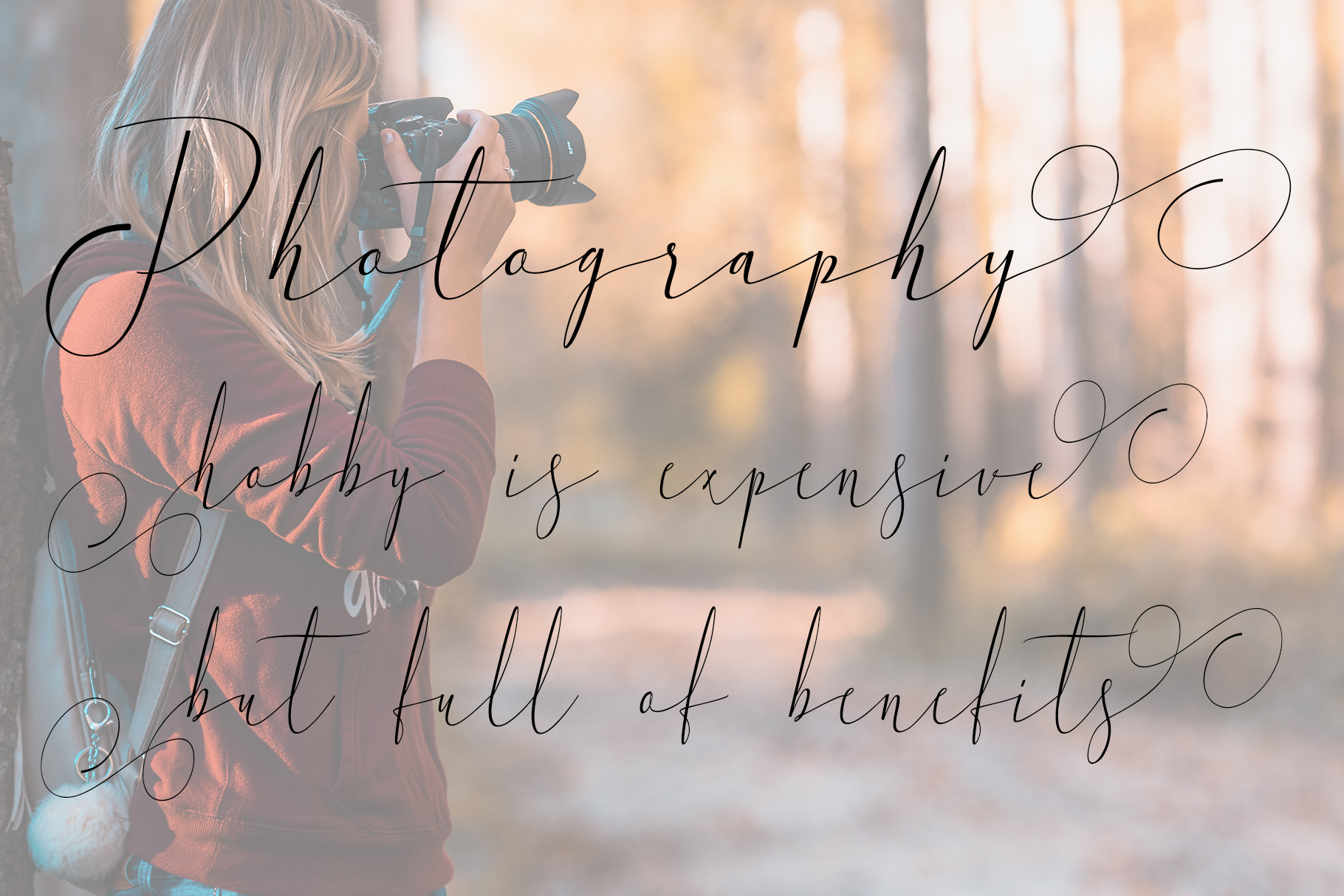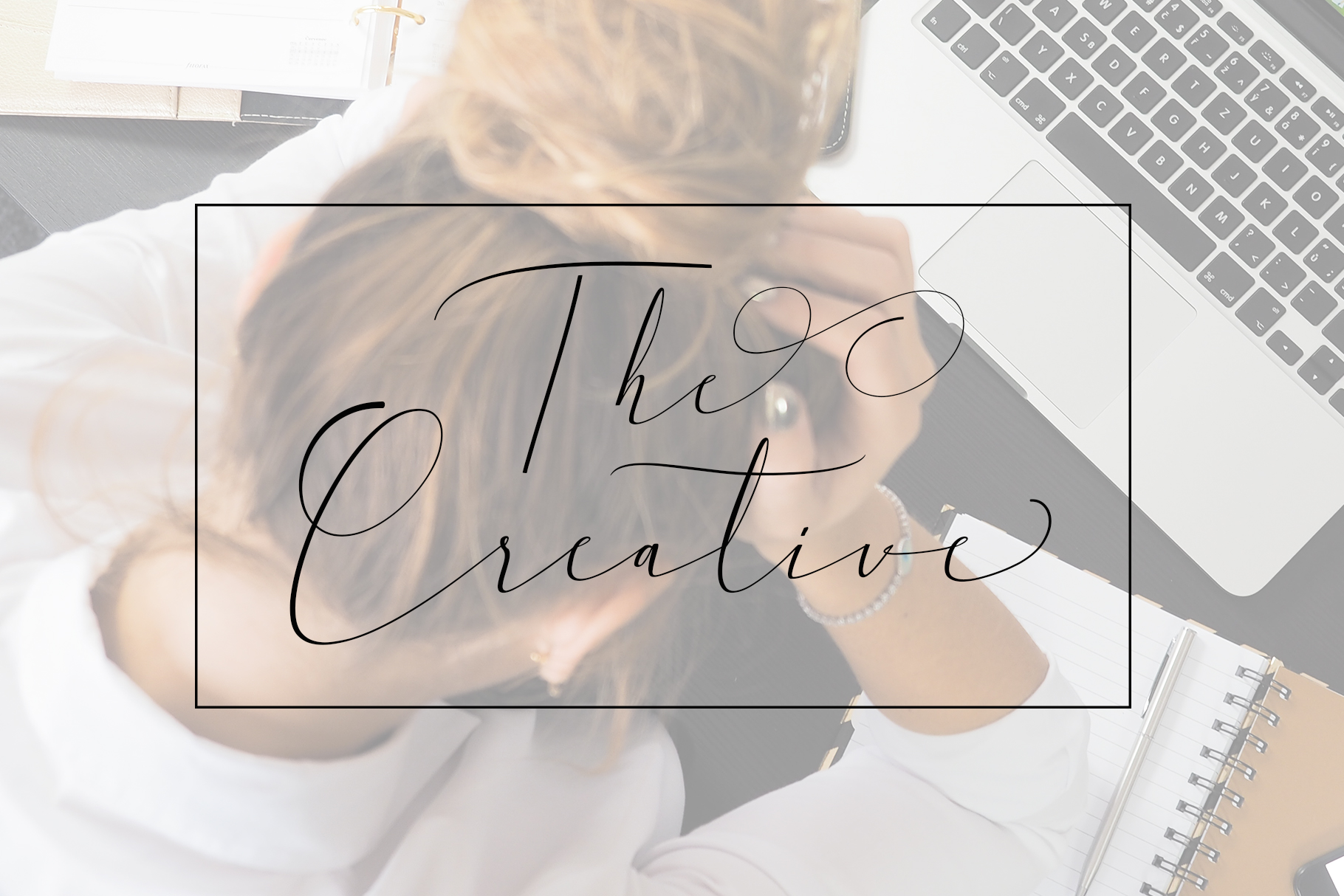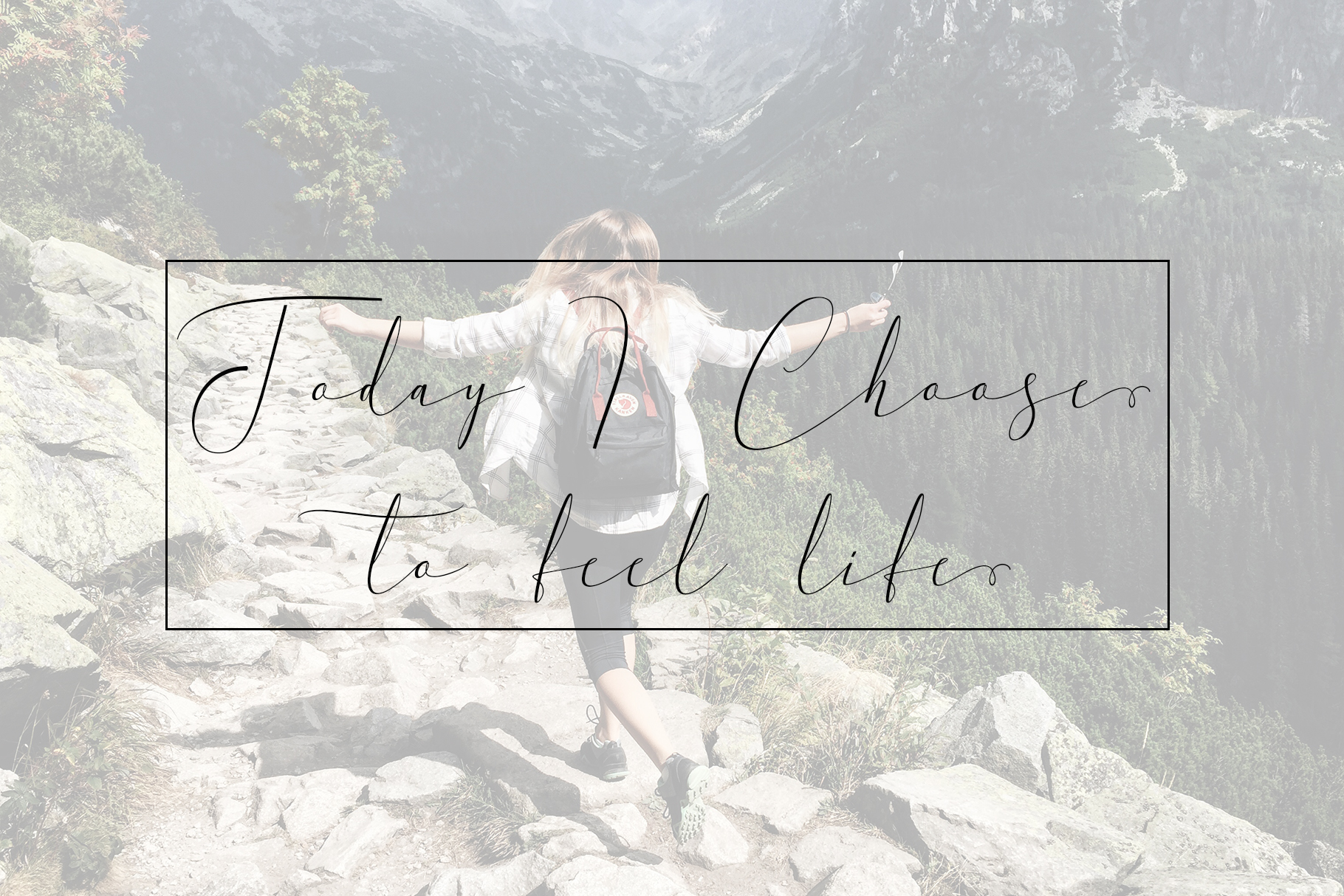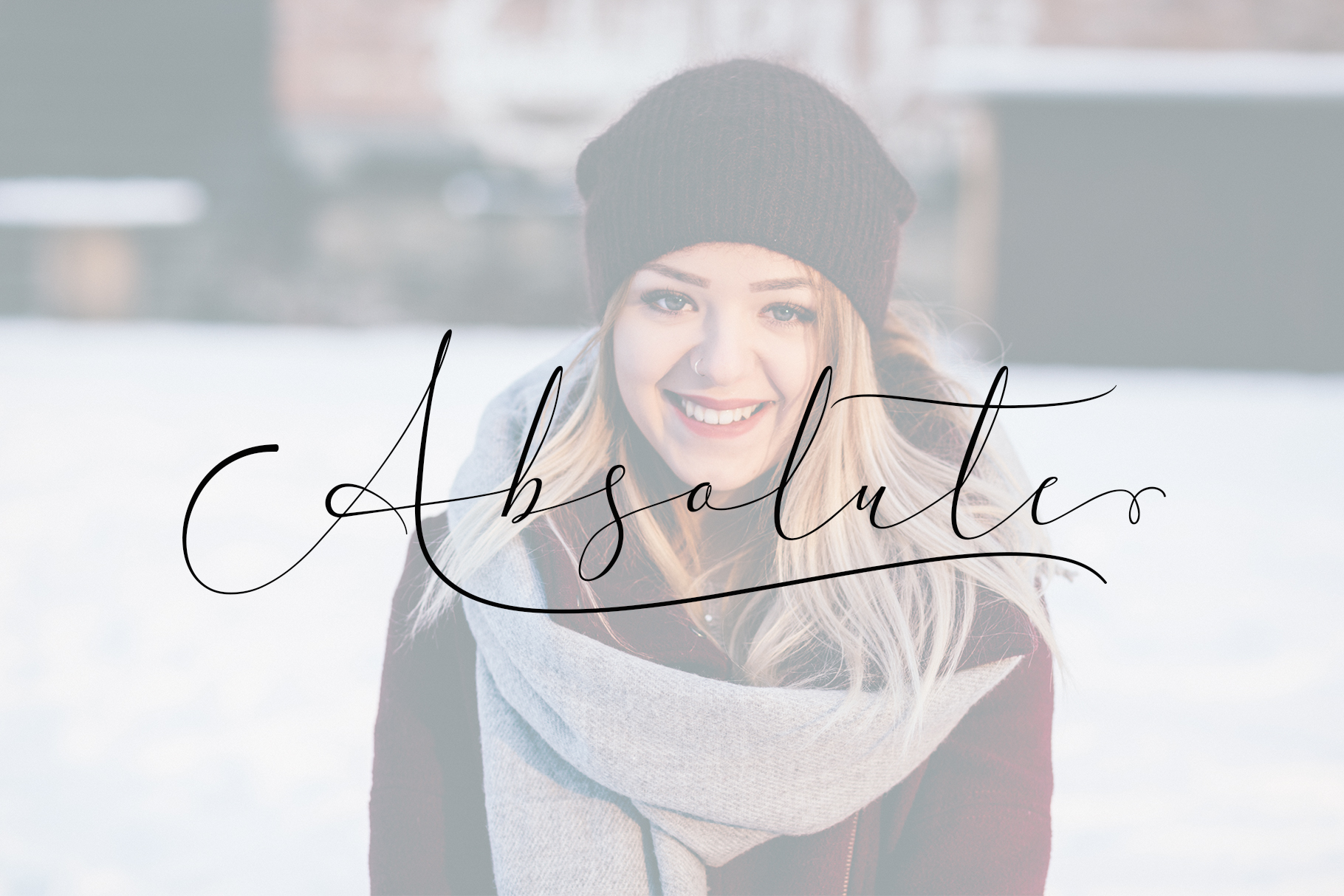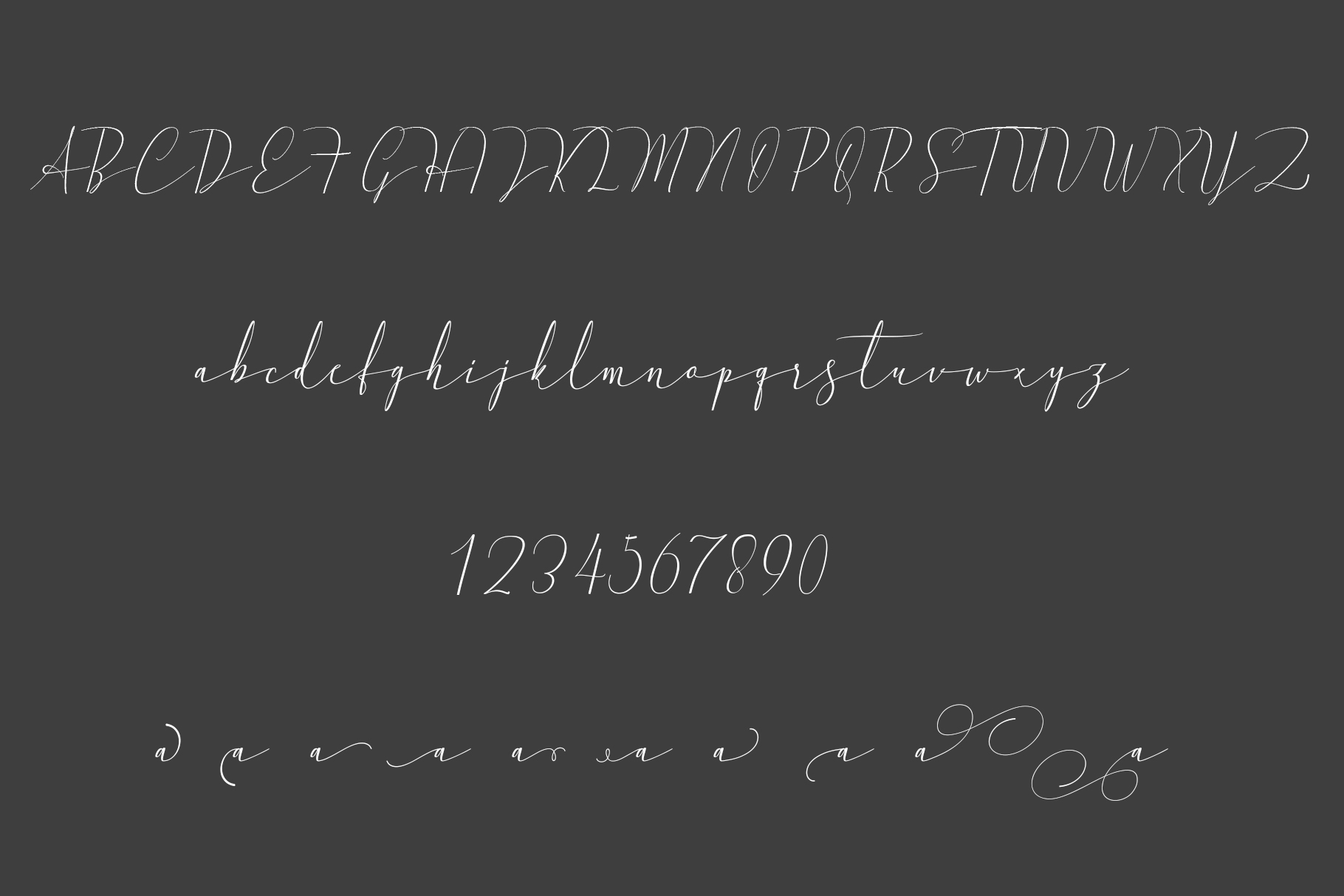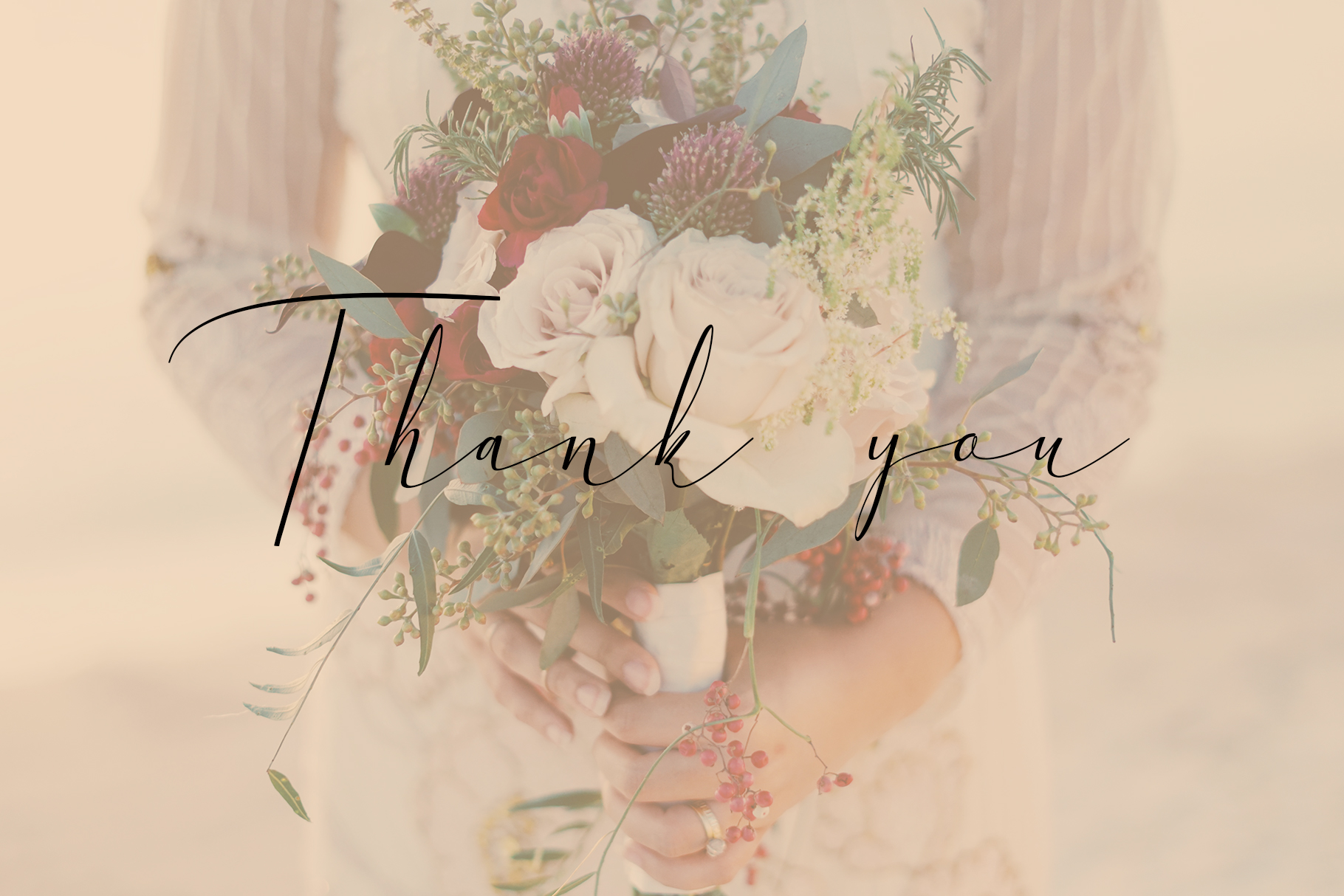
The Ultimate Guide to Absolute Font: Elevate Your Designs with Elegance
I’ll never forget the time I was working on a fashion brand’s logo design, and I just couldn’t find the right font to convey the elegance and sophistication they needed. The client wanted something that exuded luxury, but still felt approachable and modern. That’s when I stumbled upon the Absolute Script font, and it changed the game. In this article, I’ll share my love for this beautiful handwritten typeface, its features, and how to make the most of it in your designs.
An Honest Review of Absolute Font
- ✨ Elegant and refined: Absolute Script has a neat, cursive feel that’s perfect for high-end brands, fashion, and luxury designs.
- ✅ Versatile: This font works great for titles, headings, and even body text, making it a fantastic addition to any design project.
- 💫 Unique character: The subtle imperfections and varying line widths give Absolute Script a human touch that’s hard to find in digital fonts.
While Absolute Script is an amazing font, there are a few things to keep in mind:
- 🤔 Legibility at small sizes: As with many script fonts, Absolute Script can become a bit tricky to read at very small sizes (below 10pt). Use it for headlines or titles, or make sure to test it at different sizes.
- ⚠️ Pairing with other fonts: As a strong, elegant font, Absolute Script can overpower other fonts. Choose complementary fonts that balance it out.
One of the best things about Absolute Script is its OpenType features and glyphs. You can access these in Adobe Creative Cloud apps or other software that supports OpenType. Some of the features you can explore include:
- Stylistic alternates: Switch between different font styles to create a unique look.
- Ligatures: Replace common letter combinations with special ligatures for a more elegant look.
- Swashes: Add decorative swashes to your text for extra flair.
The Backstory of Absolute Font
According to the font’s creators, Absolute Script was inspired by traditional calligraphy and handwriting. The goal was to create a font that felt elegant, refined, and sophisticated, while still being approachable and modern.
Q: What type of projects is Absolute Script best suited for?
A: Absolute Script is perfect for luxury brands, fashion, apparel, and high-end designs. It’s also great for creative projects that need a touch of elegance.
Q: Is Absolute Script a difficult font to read?
A: Like many script fonts, Absolute Script can be a bit tricky to read at very small sizes. Use it for headlines or titles, or test it at different sizes to ensure legibility.
Q: Can I use Absolute Script with other fonts?
A: Yes, but make sure to choose complementary fonts that balance out Absolute Script’s elegance. Experiment with different font combinations to find the perfect pairing.